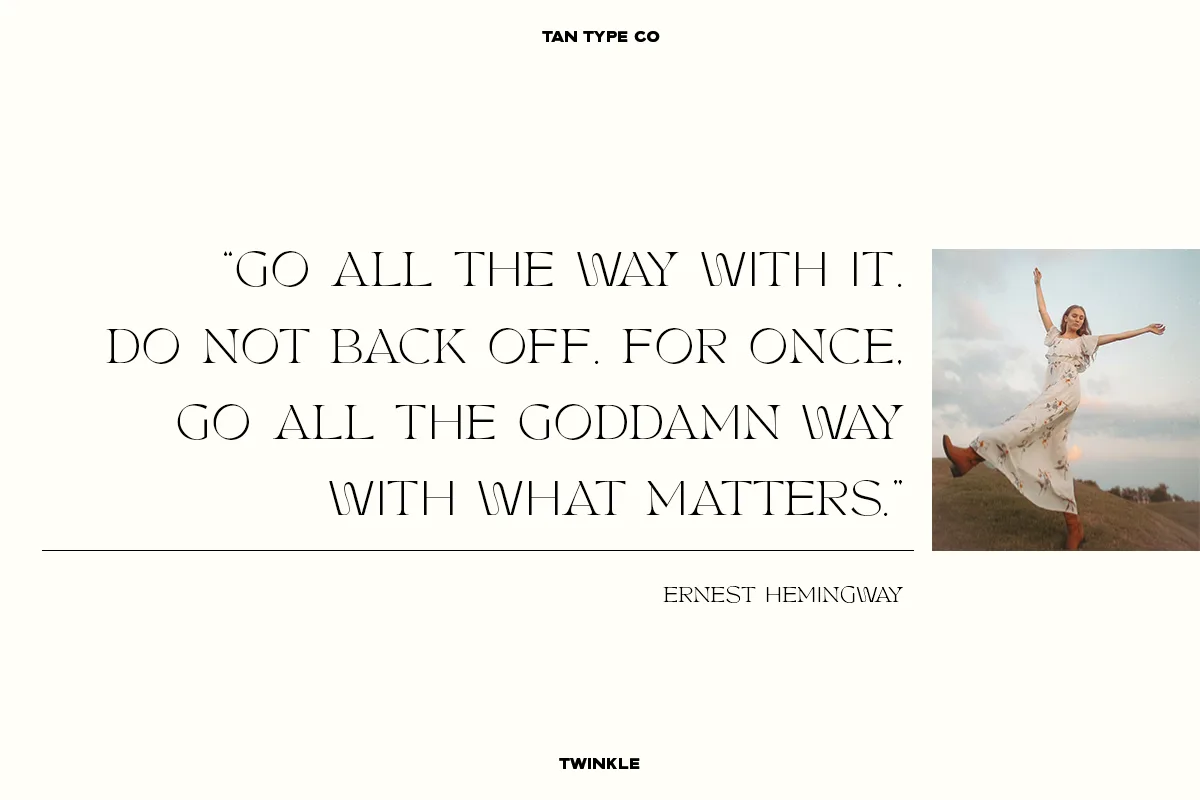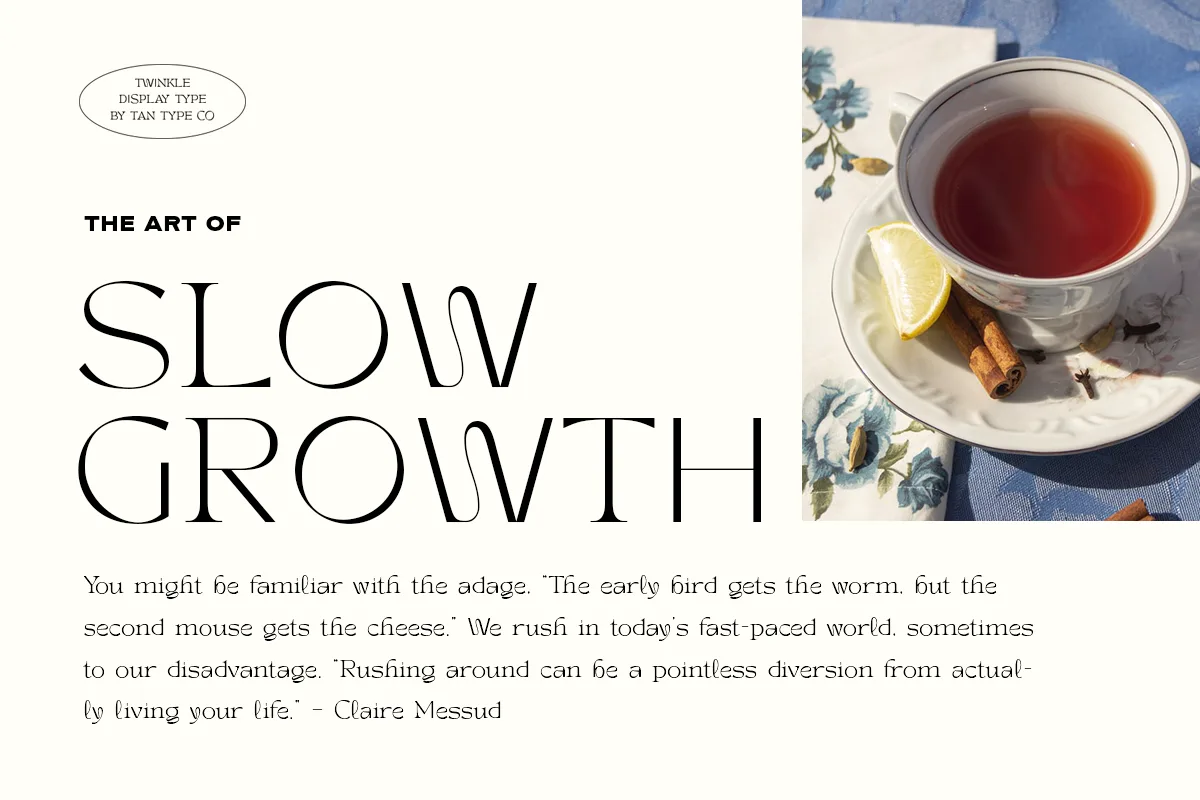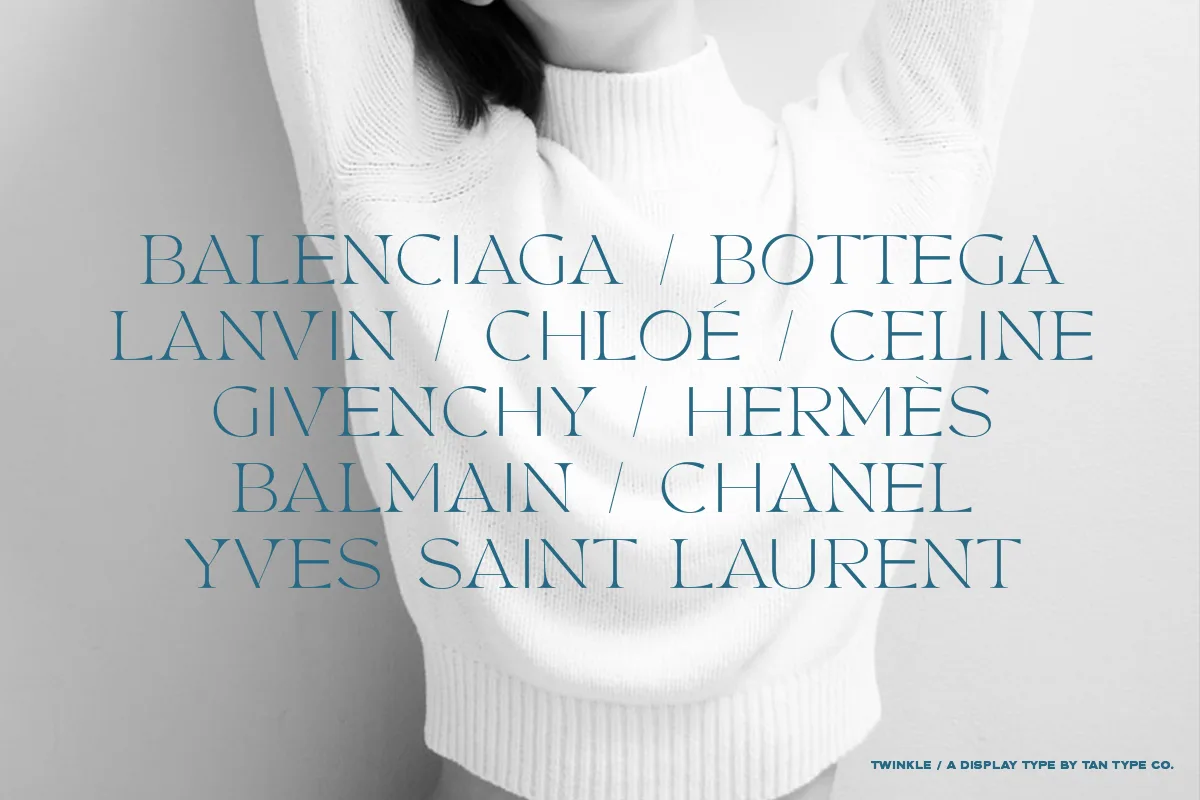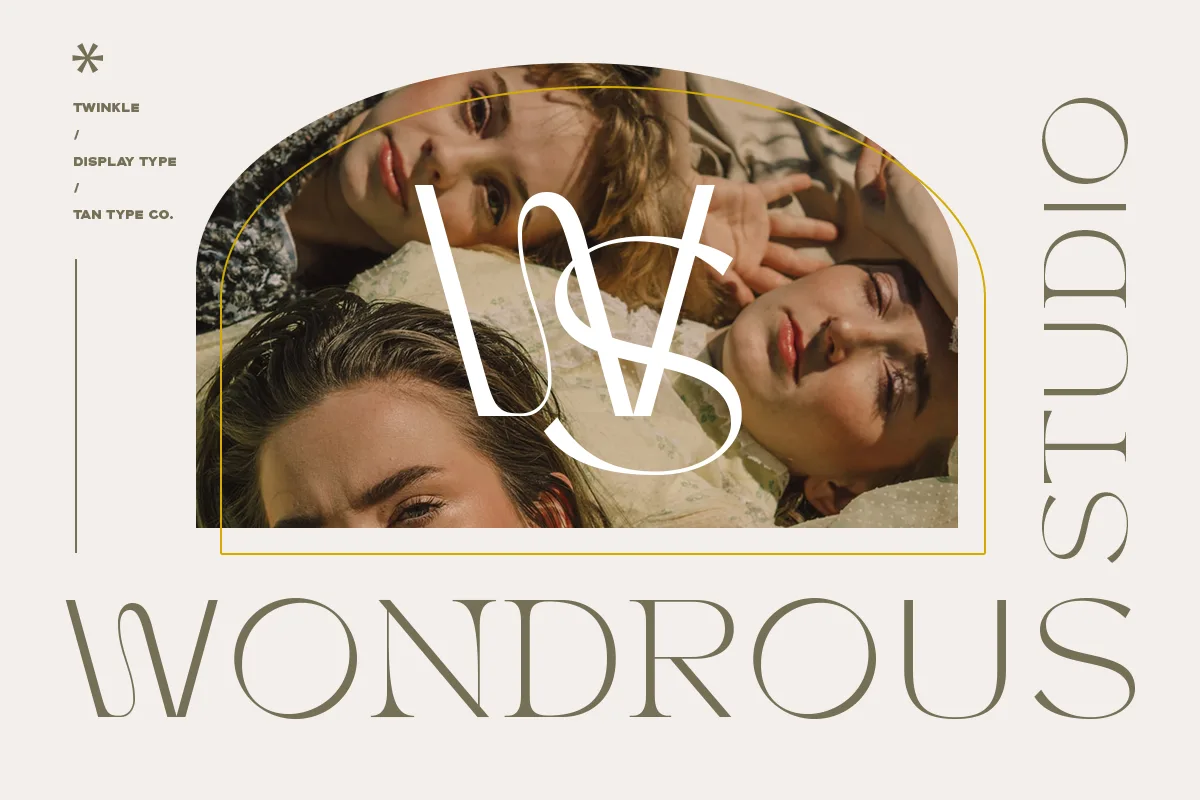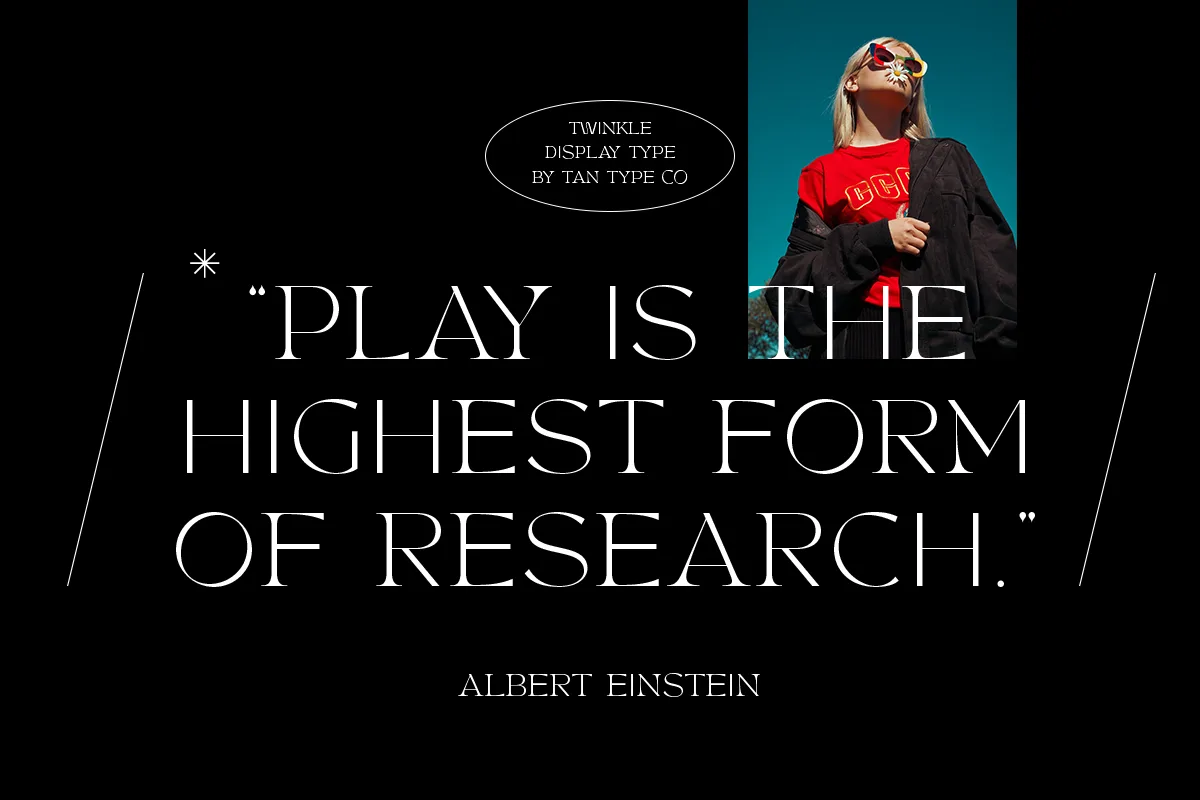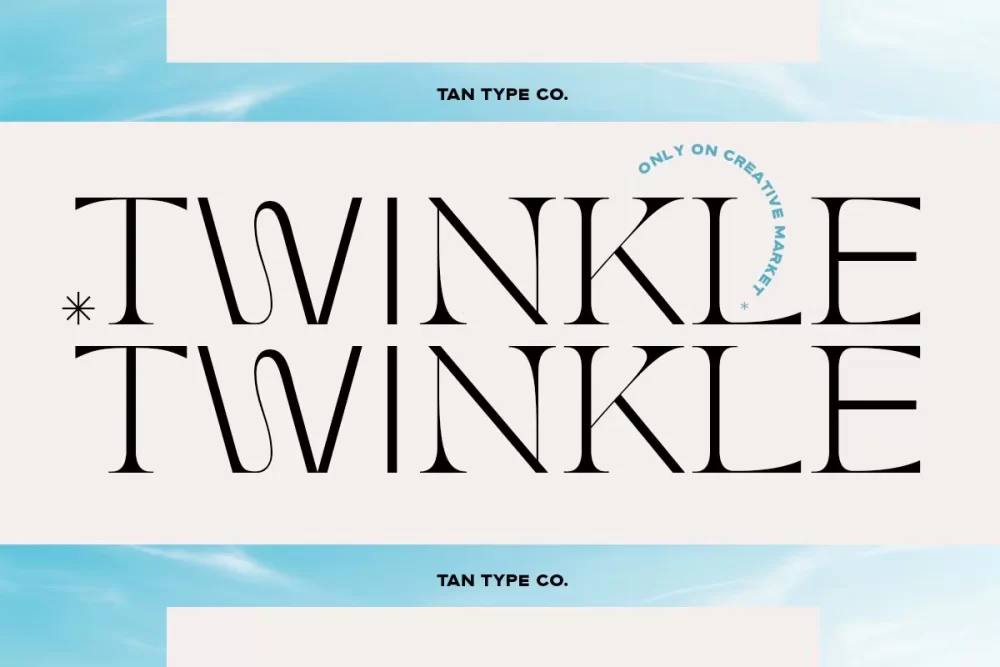
TAN Twinkle is a display typeface from Tan Type Co, released in August 2021. The designer describes it as a hybrid between a serif and a sans serif. The capitals have very high contrast, with hairline-thin strokes next to heavy ones, and several letters have one playful twist. The W, for example, is drawn as a single looping stroke instead of two crossing Vs. The result looks elegant without being stiff, a good fit for fashion, beauty and lifestyle branding.
- Uppercase, lowercase, numbers and punctuation, with ligatures and alternates.
How to use TAN Twinkle well
TAN Twinkle is a display face, and its hairline strokes need size to hold up. Set it large, for headlines, logos, product names and quote cards, and give it room. The capitals look best with a little extra letter-spacing. The looping W is the font’s signature, so words that contain it make the most of TAN Twinkle.
Avoid long paragraphs at small sizes, where the thin strokes fade out, especially on screens. For supporting text, a clean geometric sans works well, and letting it do the quiet work keeps TAN Twinkle special.
Is TAN Twinkle a serif or a sans serif?
Both, in a way. Tan Type Co describes it as a hybrid between serif and sans serif: strong thick-and-thin contrast like a serif, but mostly without the bracketed serifs a classic serif typeface would have.